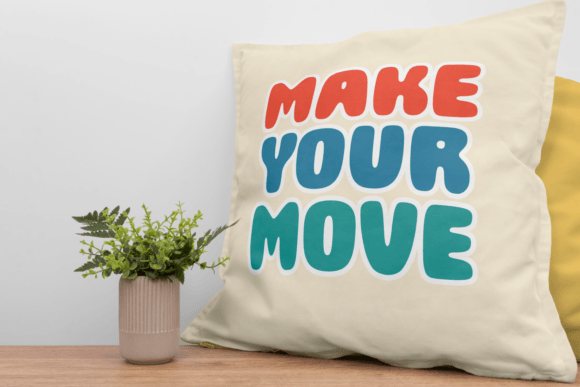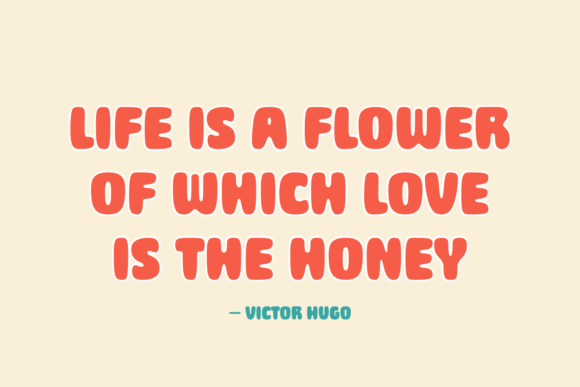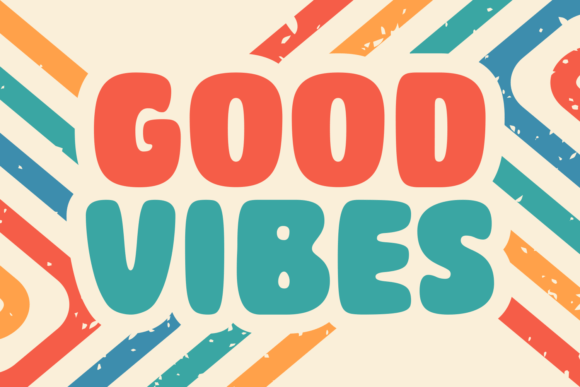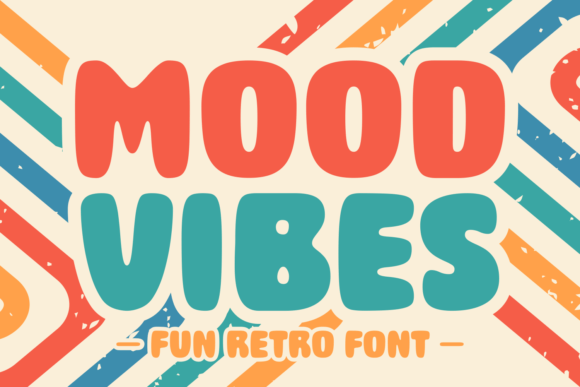
Introduction to Mood Vibes Font
Mood Vibes is a charming retro-style display font.
Enhance your typography designs with this fun and cheerful typeface that can make any creation stand out Add it to your fonts library, and use it to create eye-catching posters, apparel, kids’ t-shirts, invitations, banners, signage, and more.
Key Features of Mood Vibes Font